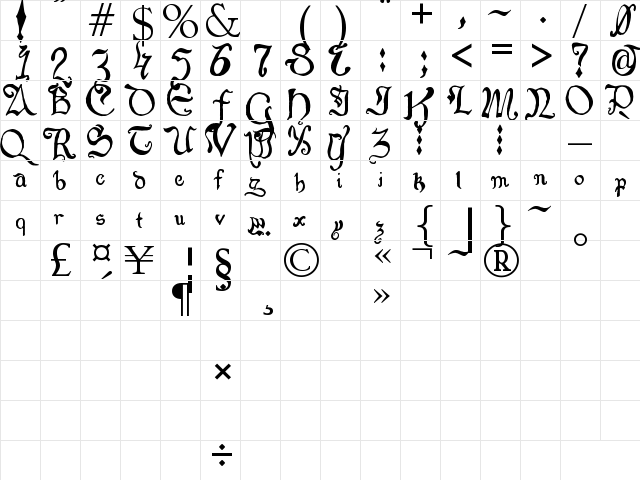
Goldilocks_Reprised Regular
| Designer | Bill Roach |
Design Context for Goldilocks_Reprised Typeface
Goldilocks_Reprised is a composed and adaptable typeface that performs quietly and consistently across a wide range of design contexts.